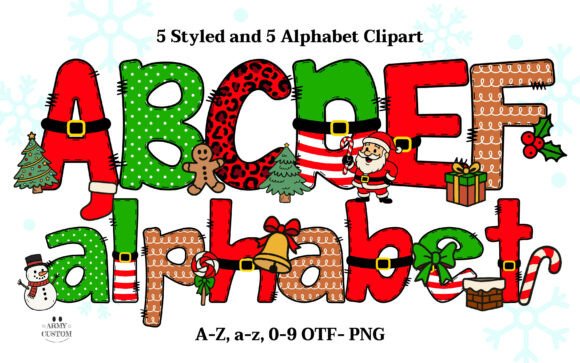
Christmas Bundle Font: Add a Dash of Whimsy to Your Holiday Designs
The holiday season is upon us, and with it comes the need for festive and fun designs to decorate our homes, gifts, and social media. If you’re a designer, crafty DIY enthusiast, or simply someone who loves the magic of Christmas, we’ve got a treat for you. Introducing the Christmas Bundle Font, a delightful and playful addition to your holiday design toolkit.
What is the Christmas Bundle Font?
Imbued with a sense of whimsy, the Christmas Bundle Font is a 5-styled Santa, Elf, Reindeer, Snowman color font that’s sure to bring a smile to your face. This charming font is inspired by the adorable antics of Santa’s helpers, making it an ideal choice for creating vibrant holiday decorations or adding a dash of merriment to any design project.
Key Features of the Christmas Bundle Font
- Playful and Whimsical Design: The Christmas Bundle Font features a unique and jovial style that’s perfect for the holiday season.
- Multiple Styles: This bundle includes 5 different styles, including Santa, Elf, Reindeer, and Snowman, giving you plenty of options for your designs.
- Color Font: The Christmas Bundle Font is a color font, allowing you to add a pop of color to your designs.
How to Use the Christmas Bundle Font
The Christmas Bundle Font is perfect for a variety of design projects, including:
Use Cases for the Christmas Bundle Font
- Holiday Decorations: Use the Christmas Bundle Font to create festive decorations, such as garlands, signs, and gift tags.
- Social Media Graphics: Add a dash of holiday cheer to your social media graphics, including Facebook posts, Instagram stories, and Twitter headers.
- Gift Tags and Cards: Use the Christmas Bundle Font to create personalized gift tags and cards for your loved ones.
- Digital Art: Incorporate the Christmas Bundle Font into your digital art projects, such as illustrations and graphics.
Why Choose the Christmas Bundle Font?
With so many fonts available, why choose the Christmas Bundle Font? Here are a few reasons:
Why Choose the Christmas Bundle Font?
- Unique and Playful Design: The Christmas Bundle Font features a unique and playful design that’s sure to stand out in your holiday designs.
- Versatility: This font can be used for a variety of design projects, from holiday decorations to digital art.
The Christmas Bundle Font is a delightful and playful addition to your holiday design toolkit. With its unique and whimsical design, multiple styles, and compatibility with select software, this font is perfect for creating vibrant holiday decorations or adding a dash of merriment to any design project. Indulge in the spirit of the holiday season with this charming, elfish font.